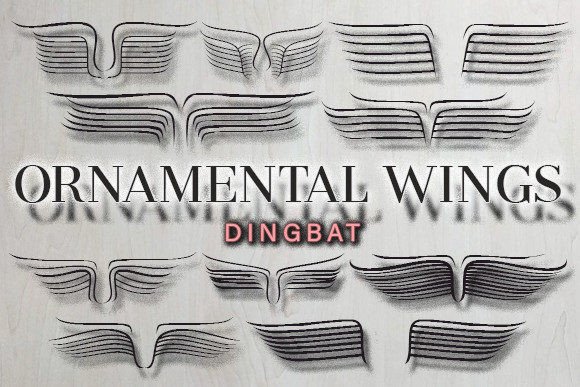
**Unleash Your Creativity with Ornamental Wings: The Ultimate Font for Tattoo Quotes**
Indulge in the exquisite world of typography with our enchanting Ornamental Wings font, meticulously designed to adorn your tattoo ideas with breathtaking beauty. This captivating dingbat font, crafted by the visionary vladimirnikolic, transports you to a realm of boundless imagination, where every stroke tells a captivating story.
As you explore the intricate details of Ornamental Wings, you'll be mesmerized by its graceful curves and enchanting shapes. Each character dances across the page like a delicate butterfly, adding a touch of whimsy and elegance to your designs. Whether you seek to immortalize a meaningful phrase or create an eye-catching tattoo that speaks volumes, this font will elevate your creations to a new level of artistry.
But what truly sets Ornamental Wings apart is not merely its aesthetic appeal, but its versatility. As a dingbat font, it transcends the boundaries of language and allows you to communicate through enigmatic symbols that evoke emotions and inspire the imagination. Whether you're designing a personal tattoo that holds deep significance or crafting a statement piece for a client, this font will empower you to convey messages with unparalleled style and individuality.
Imagine the possibilities as you adorn your tattoo designs with the enchanting strokes of Ornamental Wings. Its intricate patterns will seamlessly intertwine with your skin, becoming a permanent testament to your creativity and the enduring power of art. Each stroke will whisper a tale, inviting onlookers to delve into the depths of your imagination and discover the hidden meanings that lie beneath the surface.
So why settle for ordinary when you can embrace the extraordinary? Embrace the power of Ornamental Wings and elevate your tattoo creations to new heights. Let your imagination soar as you explore the endless possibilities that lie within each character of this captivating font.